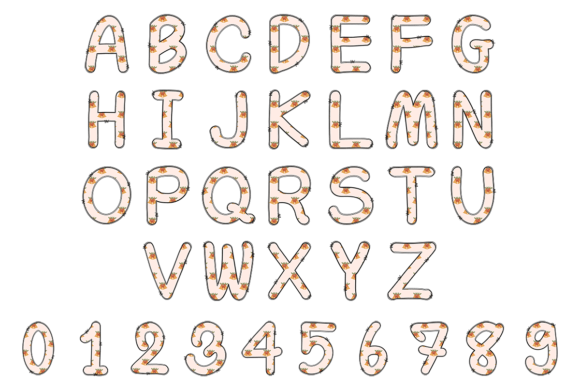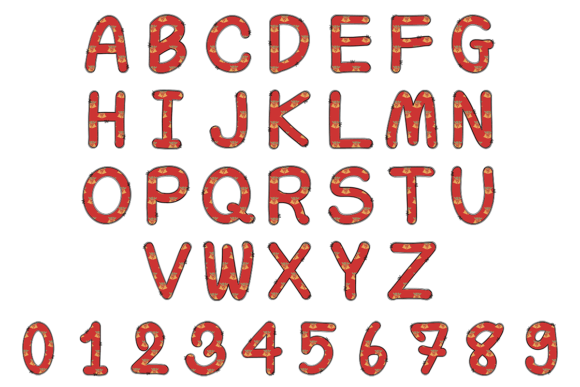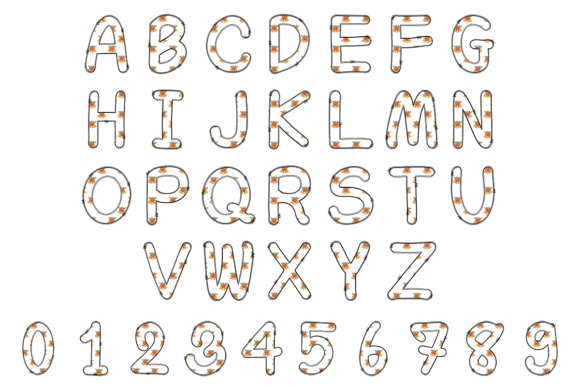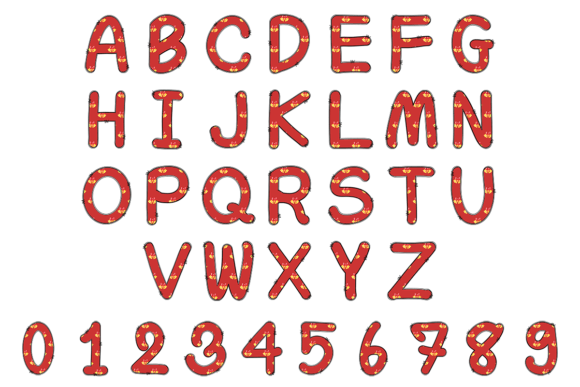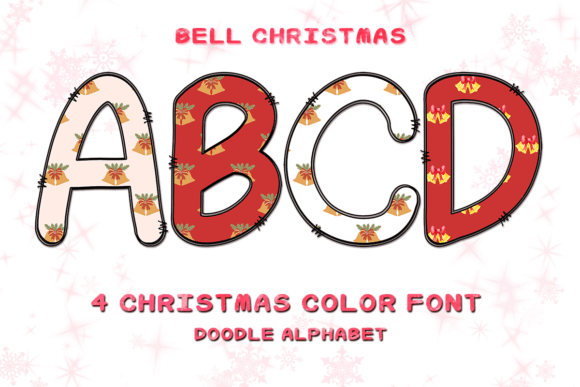
Bell Font: The Most Adorable Color Fonts for Christmas Festive and Beyond!
Are you looking for a font that screams festive cheer and joy? Look no further than the Bell Font! Proudly presented as the most adorable color fonts for Christmas, New Year, and any occasion you want to make special, this font is sure to delight designers and crafters alike. With a design that’s intended from the heart, you can use Bell Font for every purpose and enjoy every design.
Unleash Your Creativity with Bell Font
Bell Font is more than just a font – it’s an experience. With its vibrant colors and playful design, it’s the perfect addition to any project that requires a touch of festive fun. Whether you’re working on a Christmas card, a New Year’s Eve invitation, or simply want to add some personality to your digital creations, Bell Font is the perfect choice.
Limitless Options for Designers and Crafters
One of the best things about Bell Font is the limitless options it offers designers and crafters. With its versatility and flexibility, you can use it for a wide range of projects, from:
- Christmas cards and invitations
- New Year’s Eve party decorations and flyers
- Digital planners and journals
- Crafting projects, such as scrapbooking and DIY decorations
Why Choose Bell Font?
So, why choose Bell Font over other fonts? Here are just a few reasons:
- Unique and eye-catching design: Bell Font’s colorful and playful design is sure to grab attention and add a touch of festive fun to any project.
- High-quality and crisp text: With its clear and crisp text, Bell Font is perfect for both digital and print projects.
Get Ready to Enjoy Every Design
Key Features of Bell Font
Here are some key features of Bell Font:
- Color font: Bell Font comes in a range of vibrant colors to add a pop of festive fun to your designs.
- Playful design: With its playful and whimsical design, Bell Font is perfect for creating festive and fun designs.
- High-quality text: Bell Font features high-quality and crisp text, perfect for both digital and print projects.
With Bell Font, you’re not just getting a font – you’re getting a way to share festive cheer and joy with others. Whether you’re a designer, crafter, or simply someone who loves to create, Bell Font is the perfect way to spread some holiday cheer and make your designs stand out.